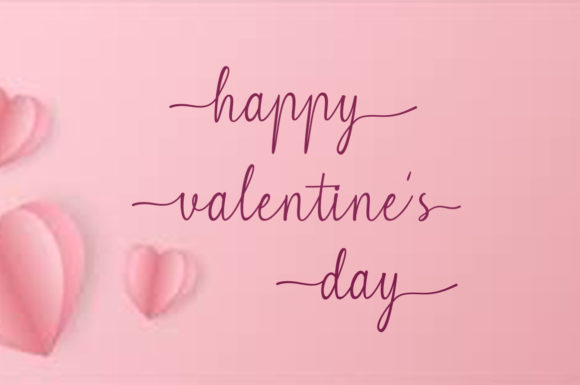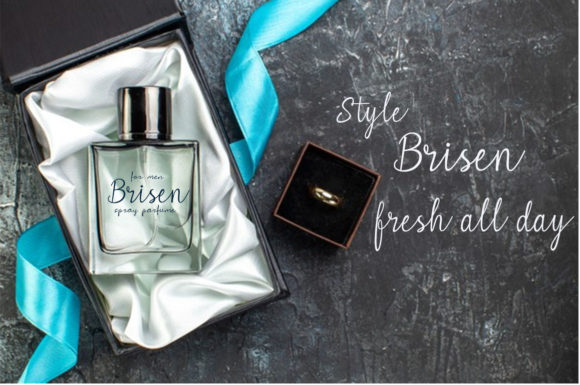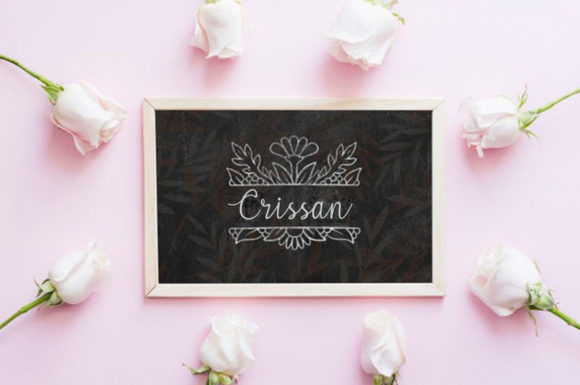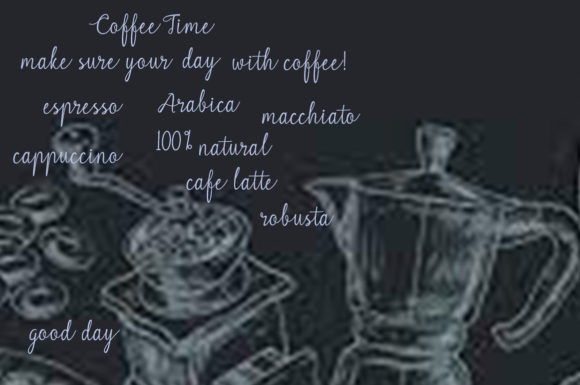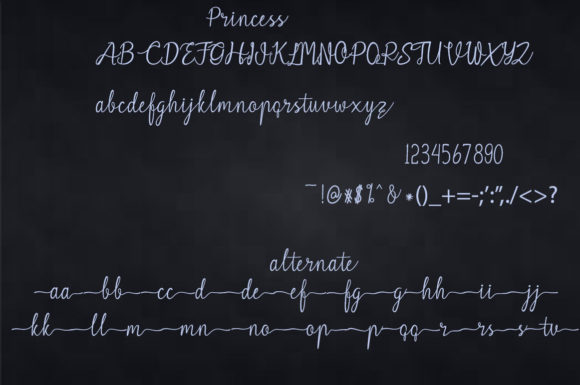
Introduction to Princess Lily Font
As a designer, there’s nothing quite like the thrill of stumbling upon the perfect font for your creative project. The moment you see it, you know – this is the one that will elevate your design to the next level. For me, that moment came when I discovered the enchanting Princess Lily Font. This elegant script font is a masterclass in timeless classic calligraphy, with a contemporary twist that’s sure to captivate your audience.
What sets Princess Lily Font apart is its impeccable form and PUA encoding, making it a valuable resource for designers. With PUA encoded, you can access all of the glyphs and swashes with ease, giving you the freedom to get creative and experiment with different designs. Whether you’re working on a high-quality design project or simply need a reliable font for a free download, Princess Lily Font is sure to impress.
- High-quality design resource ideal for creative projects, including invitations, greeting cards, and more.
- Designed with a delicate, whimsical touch, making it perfect for adding a touch of elegance and sophistication to any design project.
- Unique characteristics include intricate details, subtle flourishes, and a charming, vintage-inspired aesthetic.
Honest Review: Princess Lily Font
I recently stumbled upon the Princess Lily Font, a charming design resource that’s perfect for adding a touch of whimsy to any creative project. This free download is a real gem, and I’m excited to share my thoughts on it.
- High-quality design: The Princess Lily Font is beautifully crafted, with intricate details that make it stand out from other fonts.
- Perfect for watercolor or hand-painted effects: The font’s watercolor-inspired design makes it ideal for projects that require a soft, dreamy look.
- Limited font styles: The Princess Lily Font comes in a single style, which may not be suitable for projects that require multiple font variations.
- Not ideal for bold text: Due to its delicate design, the Princess Lily Font may not be the best choice for projects that require bold or dramatic text.
Overall, I’m impressed with the Princess Lily Font’s charm and versatility. While it may have some limitations, it’s a great addition to any designer’s toolkit, and I highly recommend it for creative projects that require a touch of elegance and whimsy.
The Princess Lily Font is a beautiful and elegant design resource perfect for your creative project. It’s a high-quality font that can be used for various purposes, from wedding invitations to branding materials.
To get the most out of the Princess Lily Font, use it for elegant and sophisticated designs, such as:
- Branding materials, such as logos and business cards
- Special occasion cards, such as birthday and graduation cards